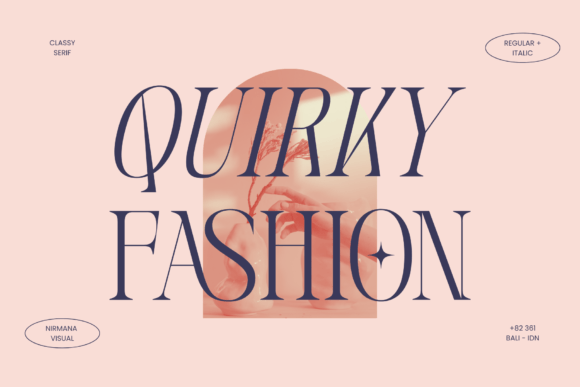
Step into a realm of elegance and sophistication with Quirky Fashion Font, a captivating serif font family that elevates your creative vision to new heights. Inspired by the opulence of timeless fashion, this font exudes a charm that is both classic and cutting-edge.
Crafted with meticulous attention to detail by the renowned font artist Sigit Dwipa, Quirky Fashion is a masterpiece of digital calligraphy. Its sharp angles and graceful curves dance across the page, creating a visual symphony that captivates the eye. Whether you're designing high-end branding materials, creating elegant invitations, or crafting sophisticated editorial layouts, this font is your perfect companion.
Immerse yourself in the versatility of Quirky Fashion. Its timeless beauty shines in a multitude of applications, from wedding invitations and social media graphics to logos, posters, and brochures. With its innate ability to elevate any project, this font is a must-have for designers, marketers, and creatives who demand the best.
Experience the allure of Quirky Fashion today and embark on a creative journey that knows no bounds. Let your imagination soar as you weave words into art, transforming ordinary text into captivating expressions of style and sophistication.